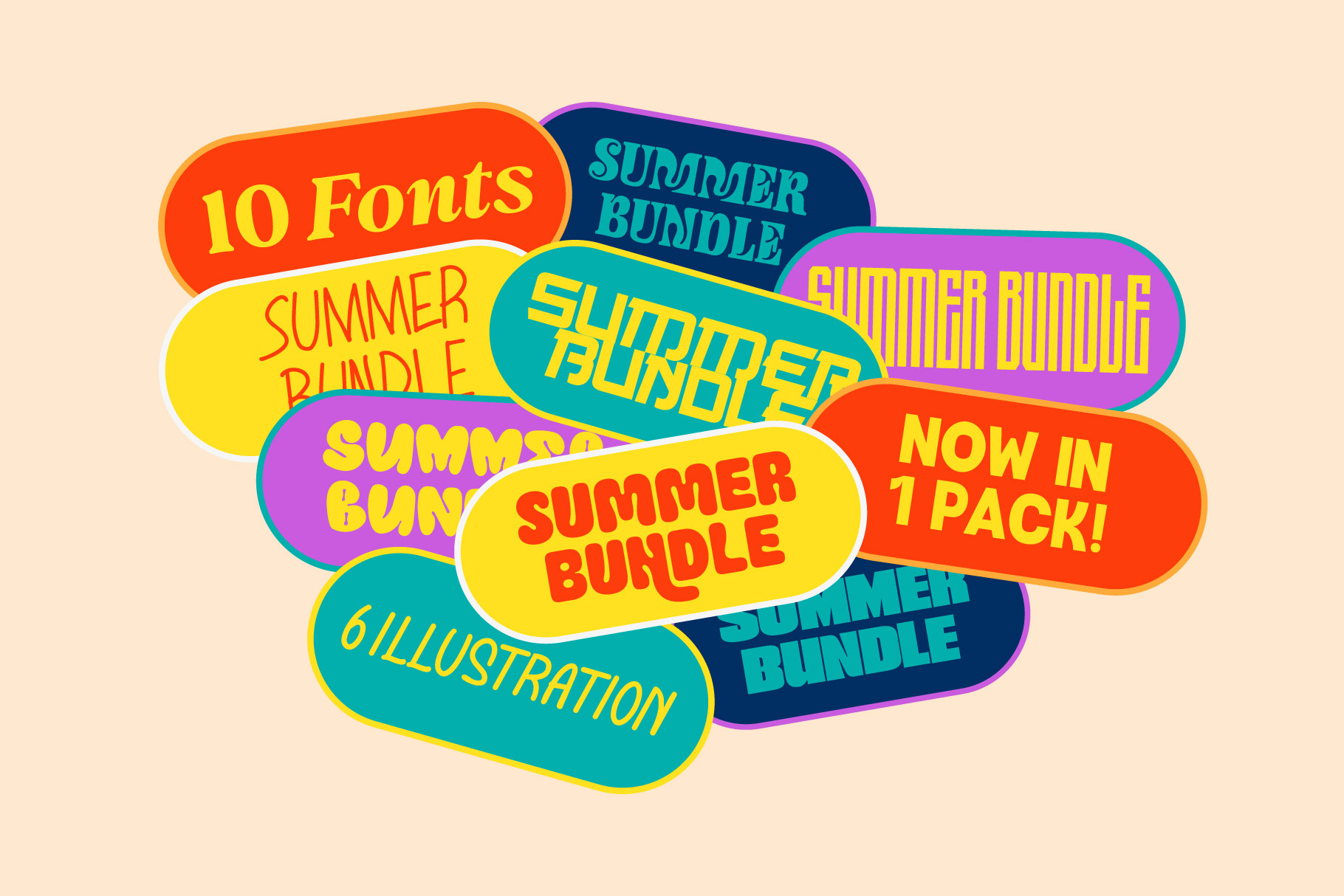
[30% OFF] Summer 10 Fonts Bundle
Introducing our vibrant Summer Font and Illustration Bundle, where creativity meets sunshine! Dive into a world of endless possibilities with 10 stunning fonts that evoke the essence of summer vibes, each stroke radiating warmth and cheerfulness. Paired with 6 captivating illustrations bursting with color and life, this bundle is your ultimate toolkit for adding a splash of summer to your designs. Whether you're crafting beach party invitations, tropical-themed posters, or simply infusing your projects with a touch of sunshine, this bundle has everything you need to make your creations shine brighter than the summer sun.